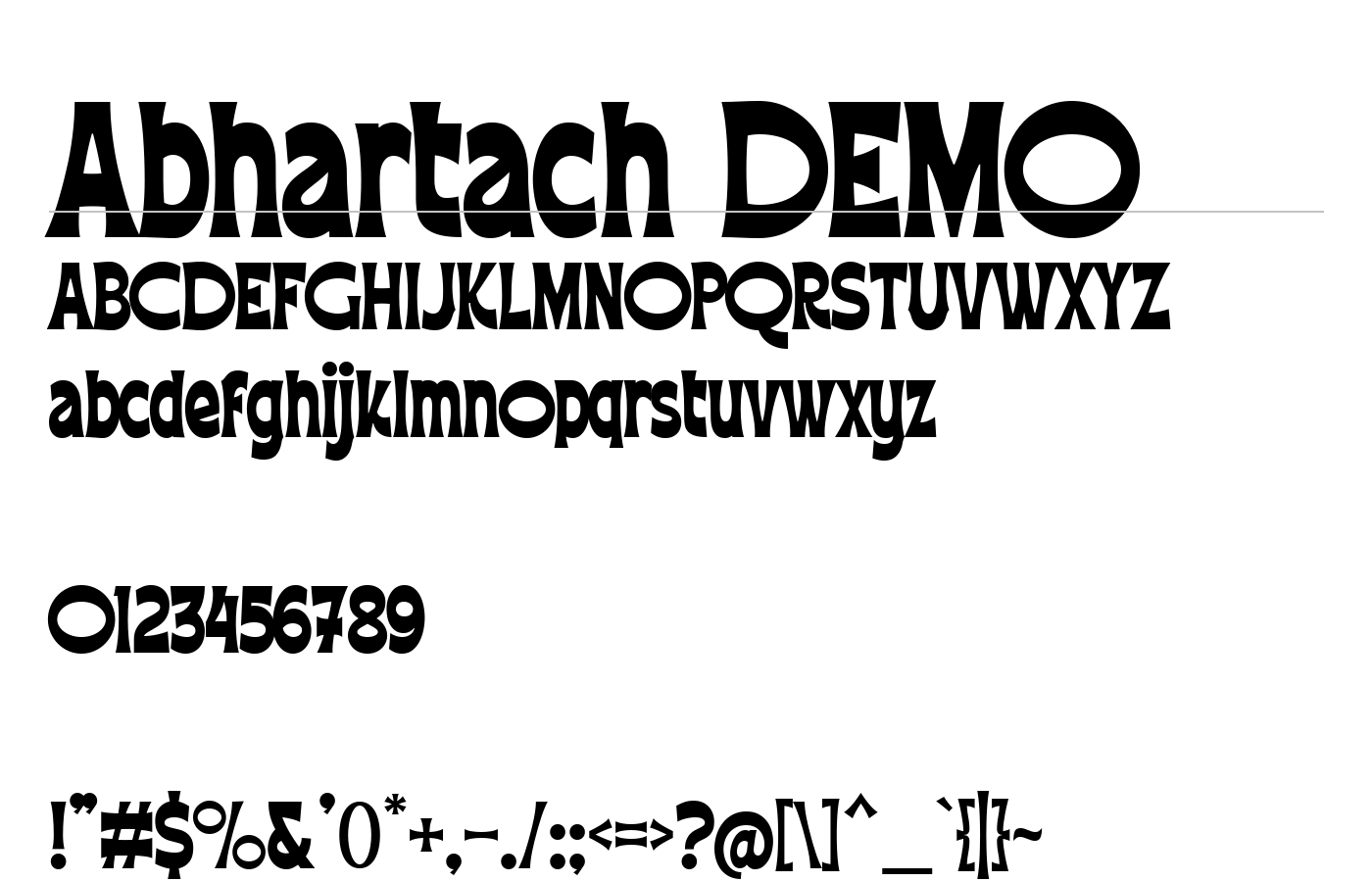
Abhartach DEMO is a bold and playful sans serif font with a strong, compact feel and high stroke contrast, giving it a quirky, almost whimsical personality. Its unique letterforms with sharp angles and rounded shapes make it ideal for creative headlines, posters, and branding projects that want to convey energy and fun. This font works best where you want to grab attention and add a distinctive, lively character.
Abhartach DEMO Font
About Abhartach DEMO Font